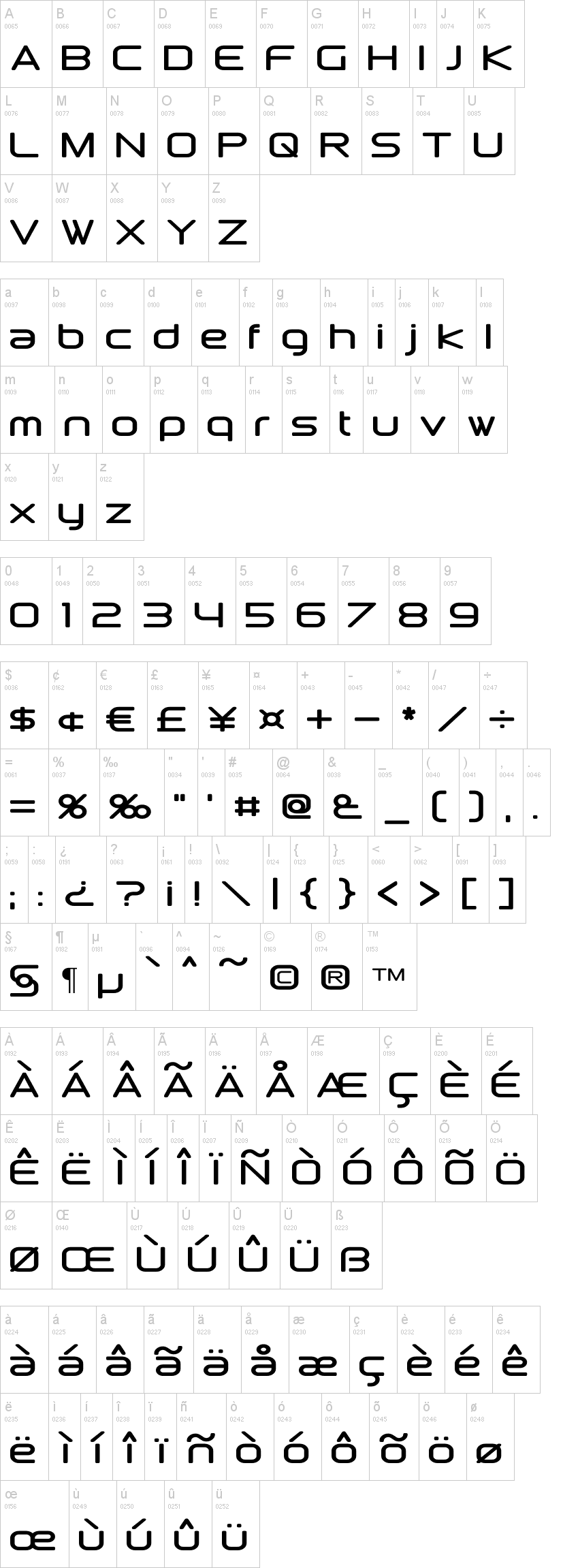
Downlink Italic.otfDownlink Bold.otfDownlink Bold Italic.otfNote of the authorA techno-themed font perfect for fitting into any modern cyberpunk campaign. Includes complete alphabet, euro, punctuation, stock european character set, and italics version.
- Added oe and per-thousand glyphs
- Spacing cleanup
- Bold and bold italic faces added